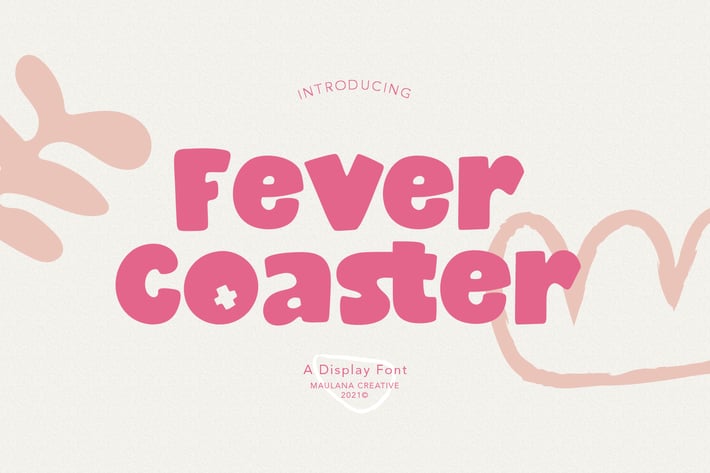
Fever Coaster Display Font
Fever Coaster Display Font is a casual handwritten font. With rough stroke, Condensed and fun character with a bit of ligatures. To give you an extra creative work. Fever Coaster font support multilingual more than 100+ language. This font is good for logo design, Social media, Movie Titles, Books Titles, a short text even a long text letter and good for your secondary text font with sans or serif. Make a stunning work with Fever Coaster font.